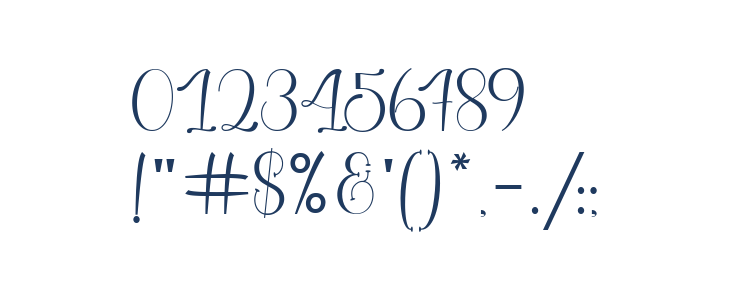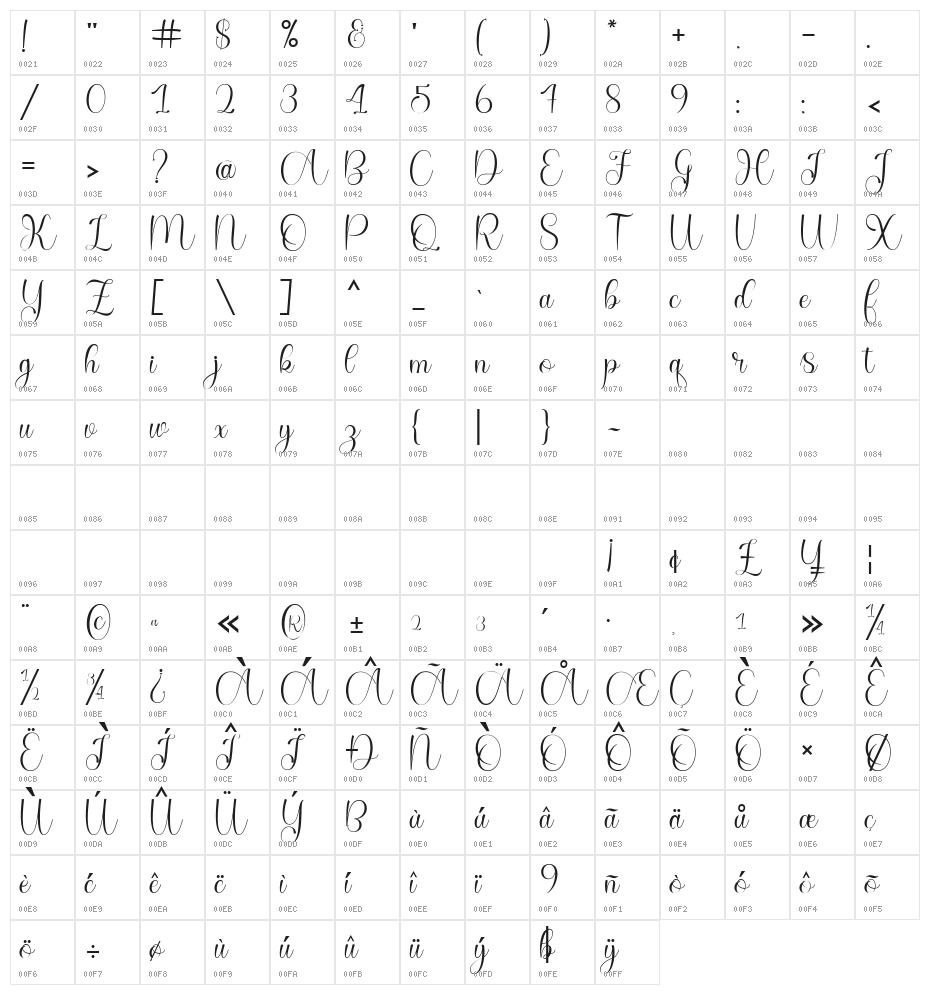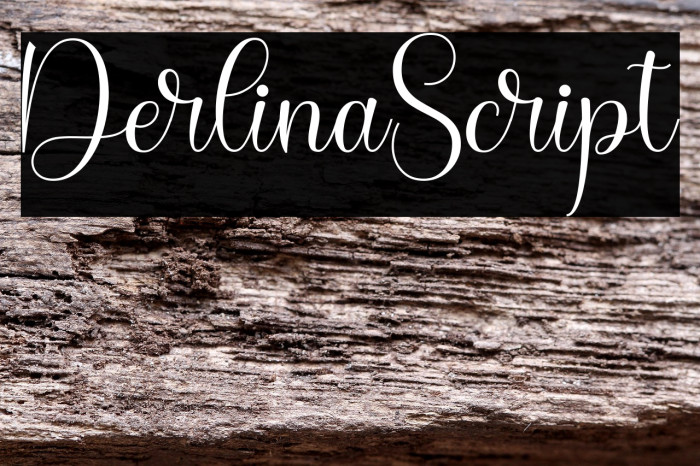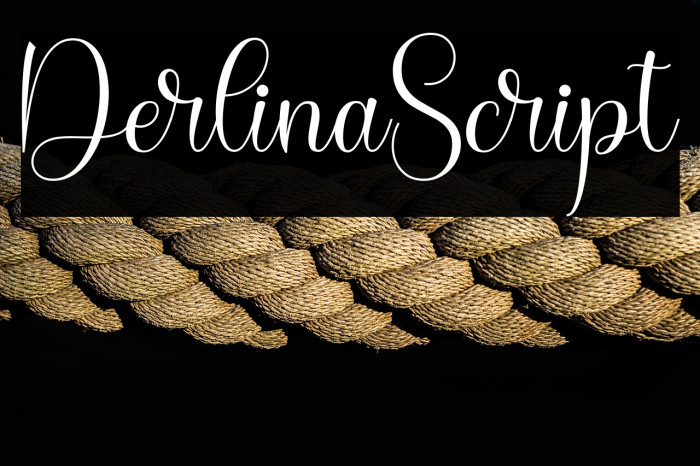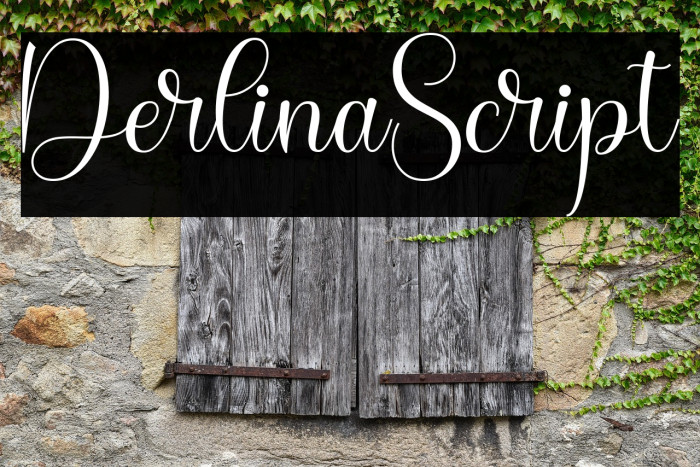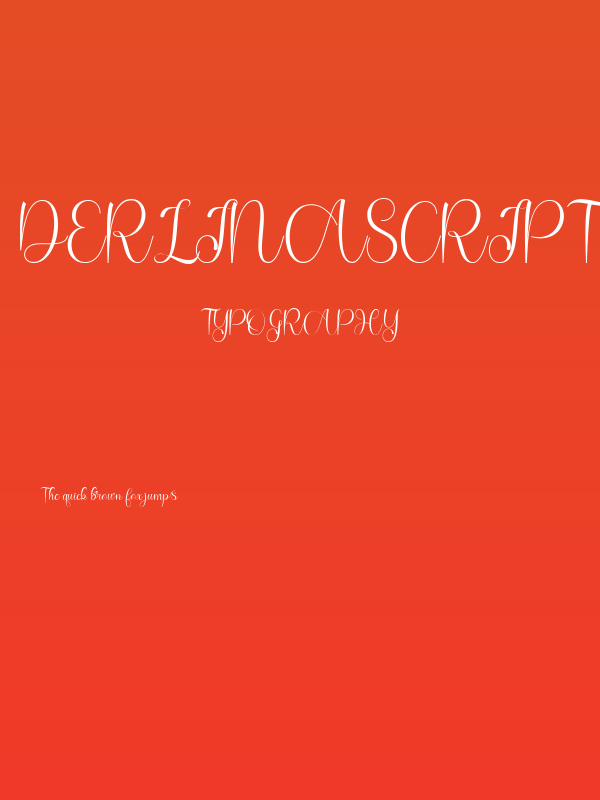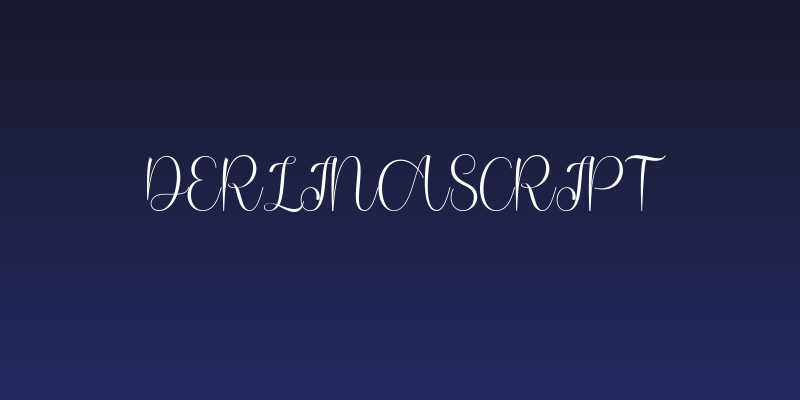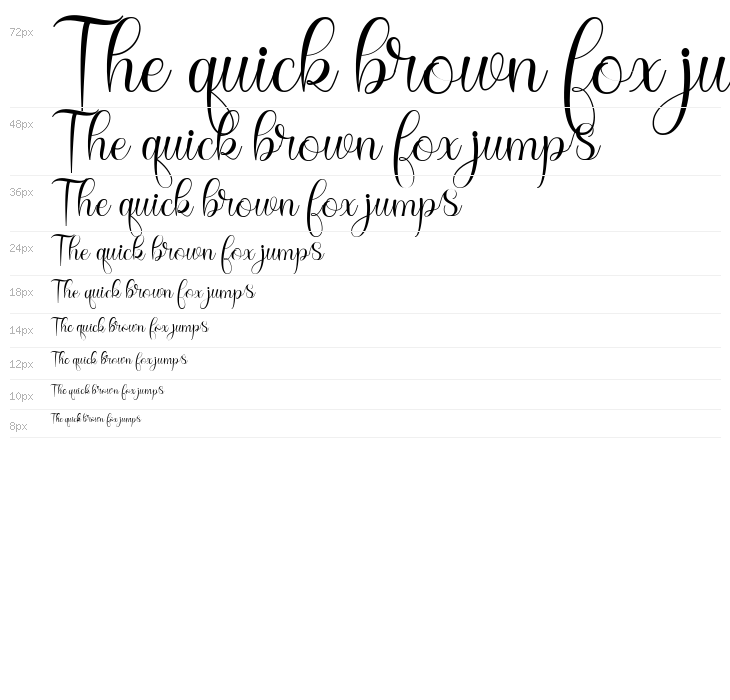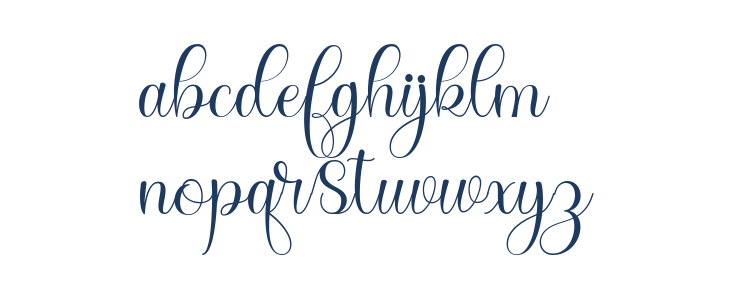
DerlinaScript Font
DerlinaScript Description
This elegant script font features a flowing, cursive style with intricate loops and swashes that give it a sophisticated and artistic appearance. The uppercase letters are particularly ornate, with each character exhibiting unique flourishes that enhance its decorative appeal. The lowercase letters maintain a consistent style, with smooth, connected strokes that create a seamless flow. The numerals and special characters complement the overall design, maintaining the same level of elegance and intricacy. This font is perfect for projects that require a touch of elegance and sophistication, such as wedding invitations, branding, and high-end product packaging.
| Overall Style | Elegant |
| Use Case | Logos, Invitations, Branding |
| Proposed Projects | Ideal for wedding invitations, luxury branding, and elegant product packaging. |